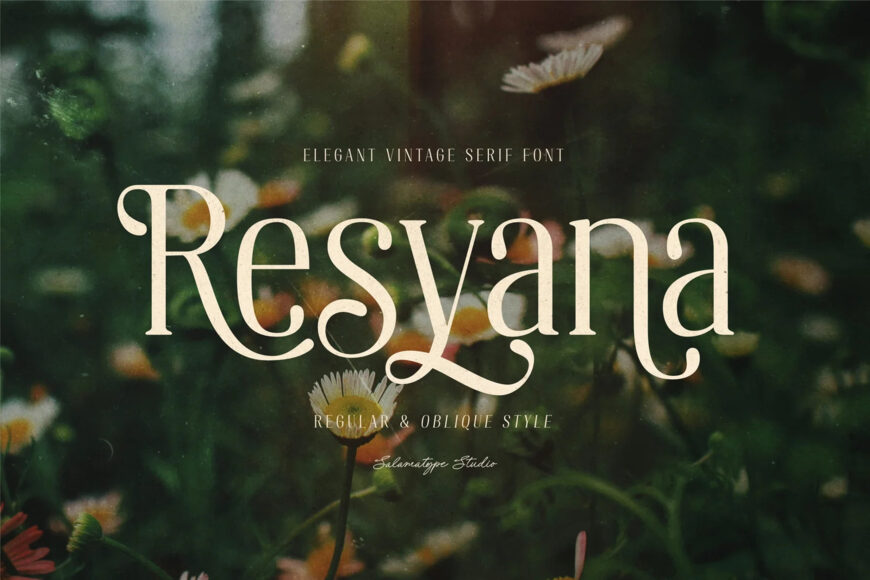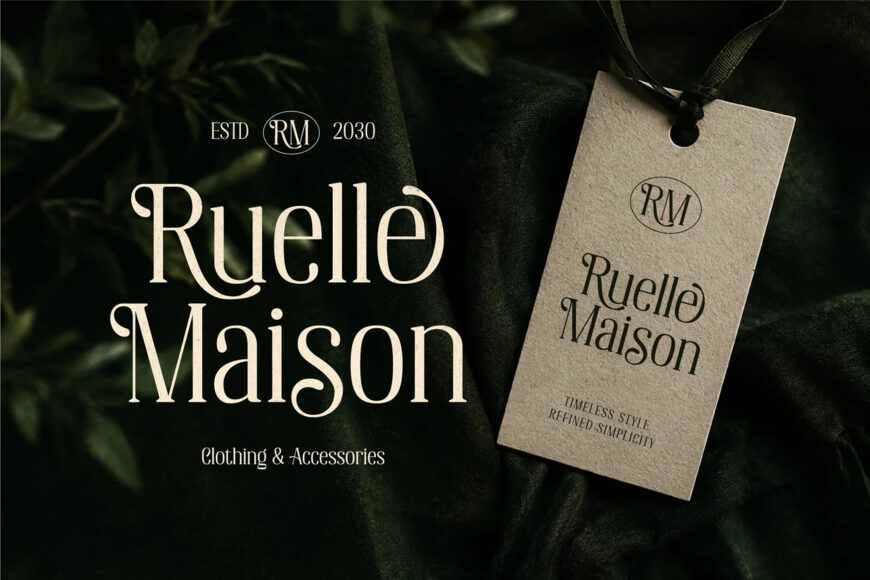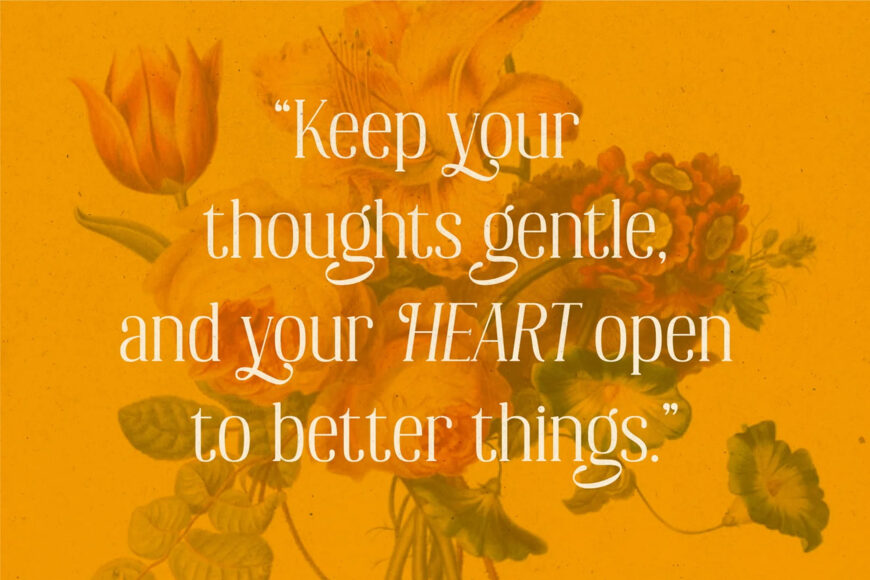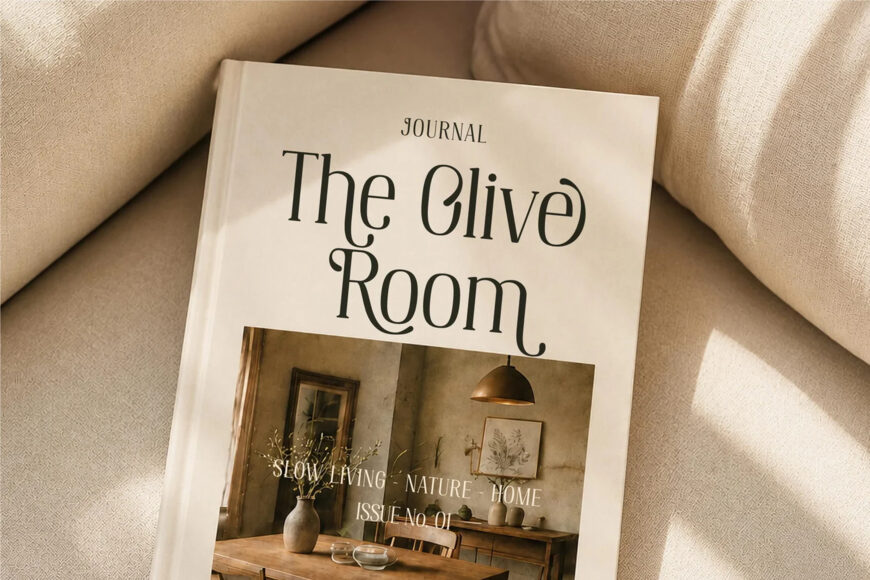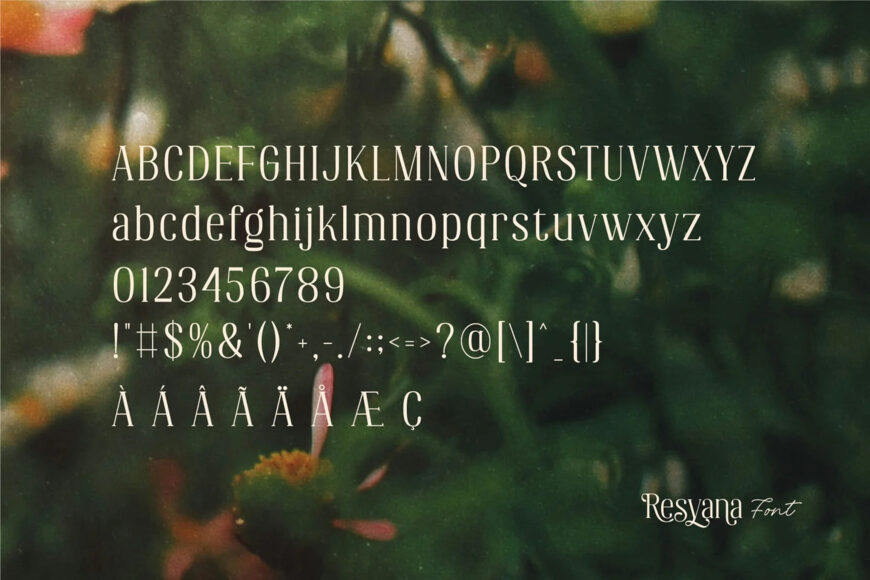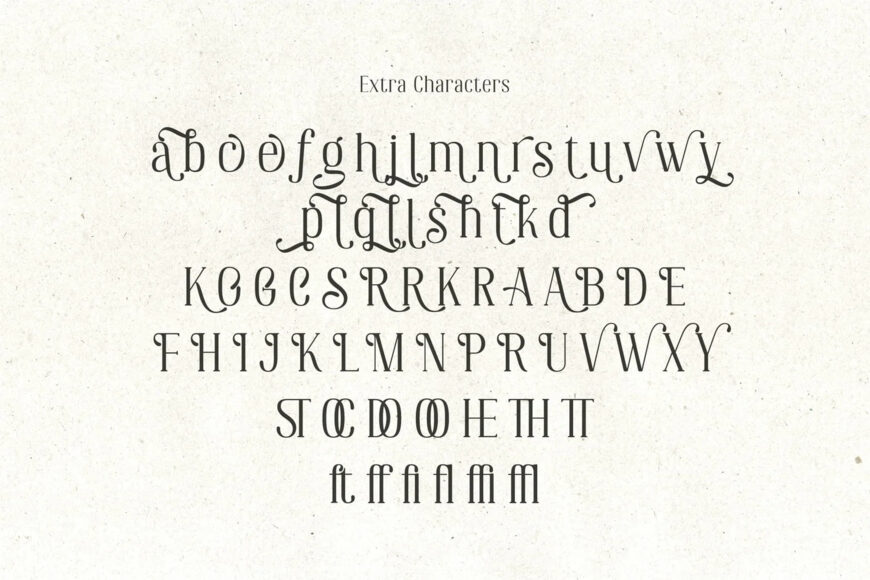
Resyana Font
Resyana is an elegant vintage serif typeface designed to bring a refined, feminine, and timeless character to your creative projects. Its high-contrast letterforms, graceful curves, and distinctive details create a sophisticated editorial feel while maintaining a touch of classic vintage charm.
With Regular and Oblique styles, Resyana offers flexibility for creating expressive typography, from elegant headlines to luxurious branding applications.